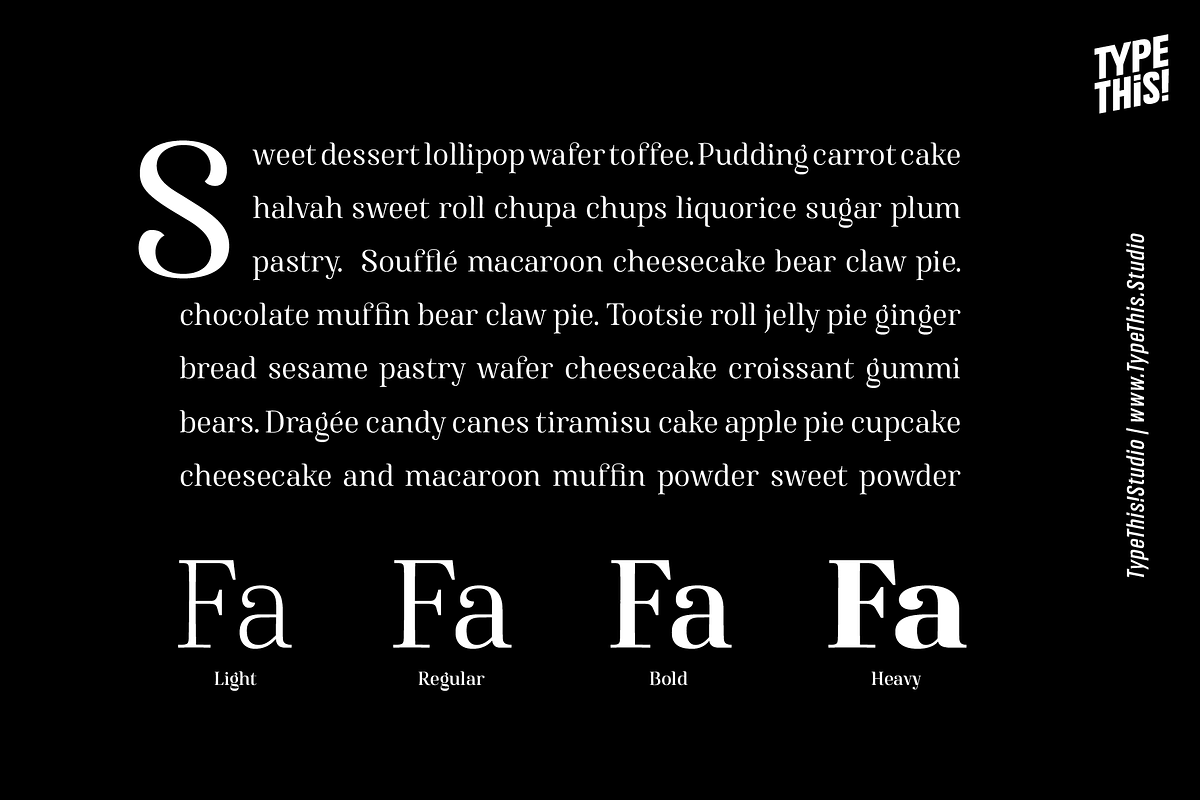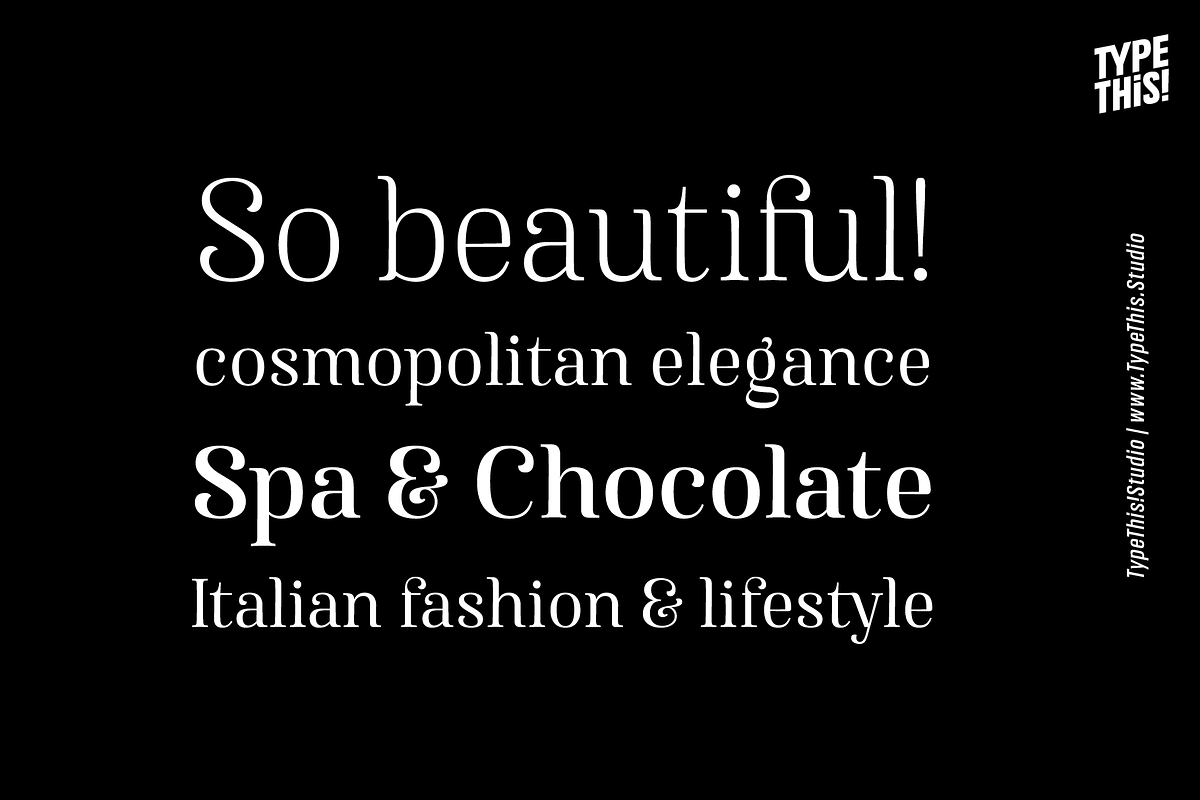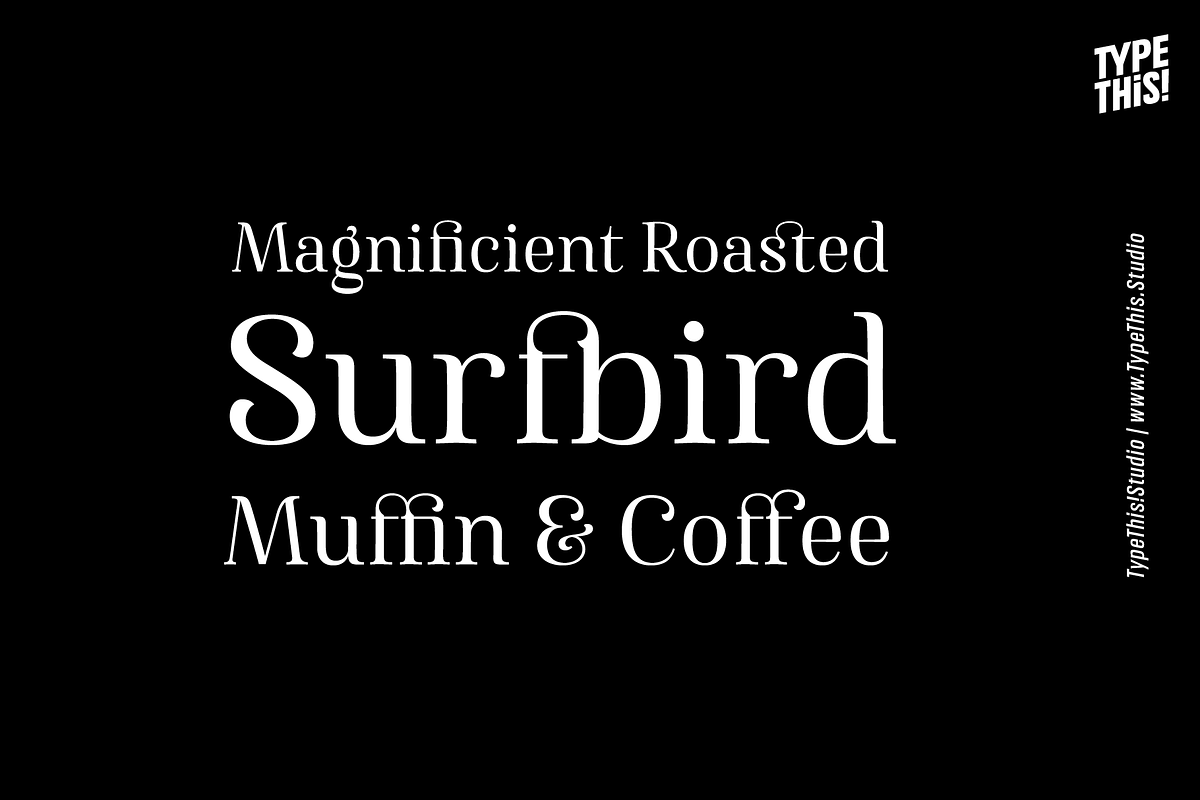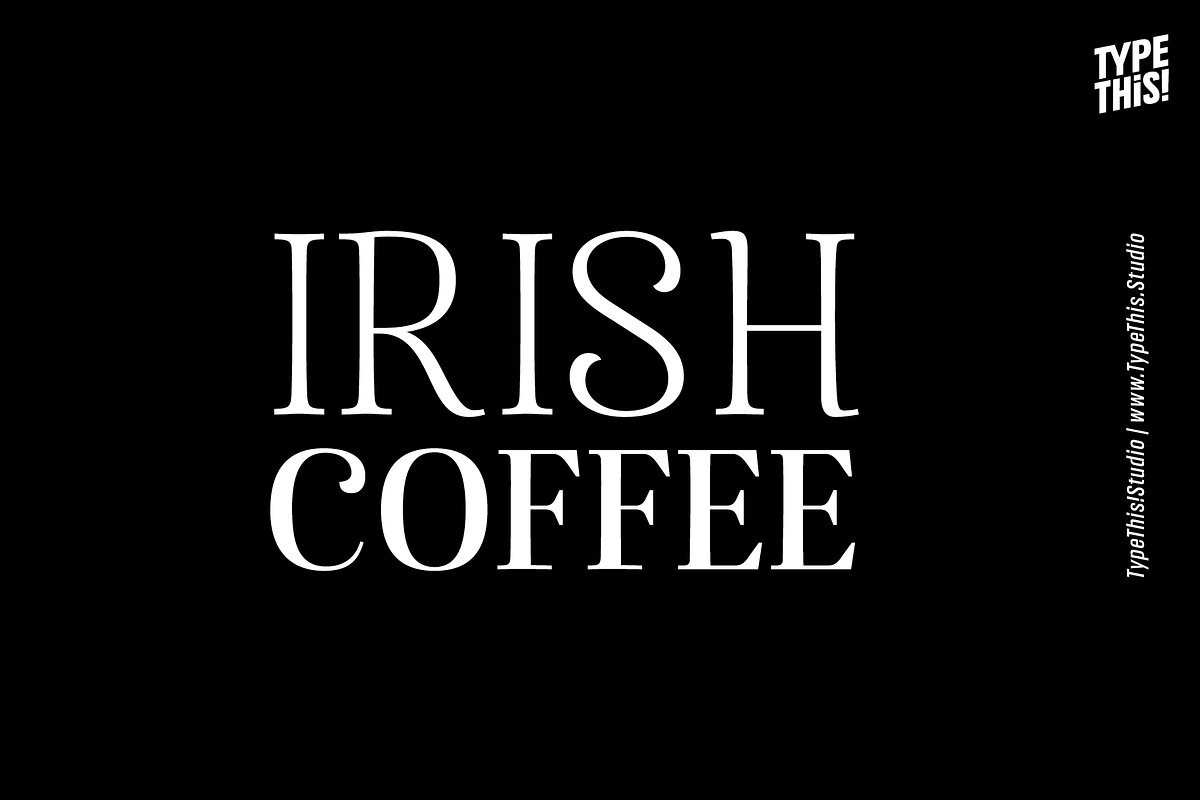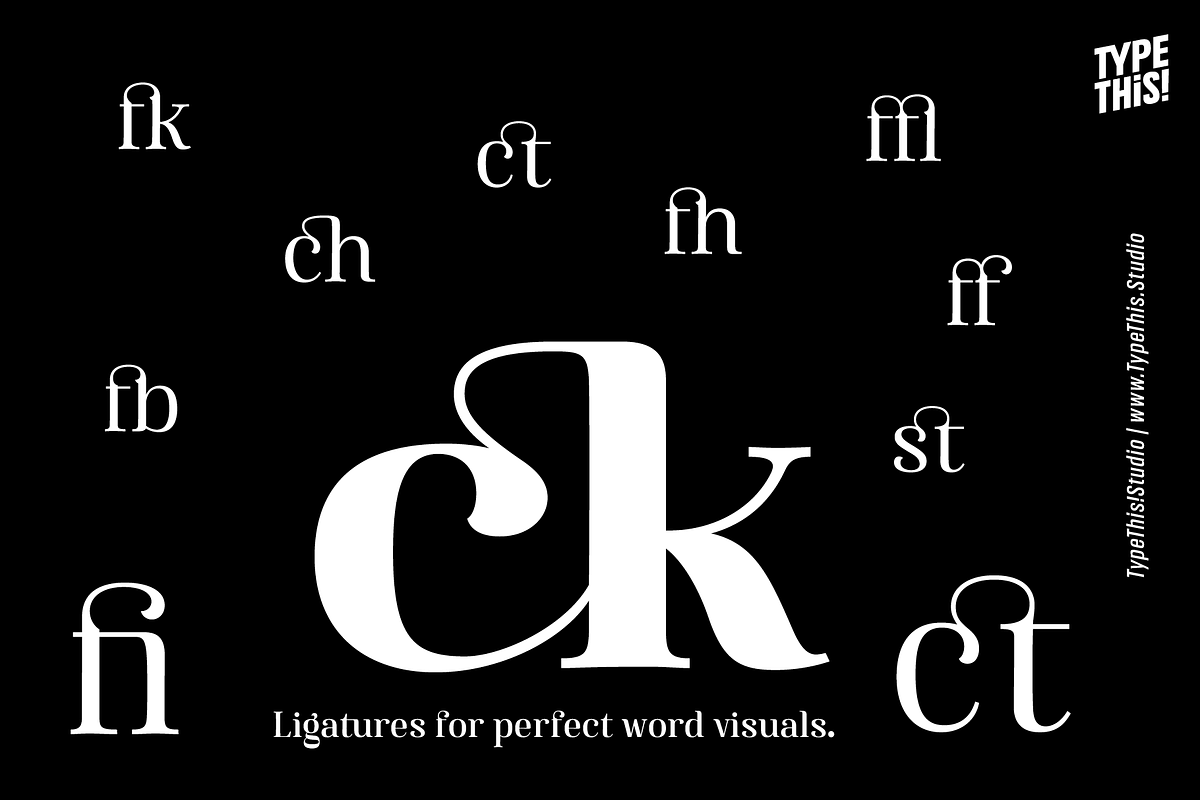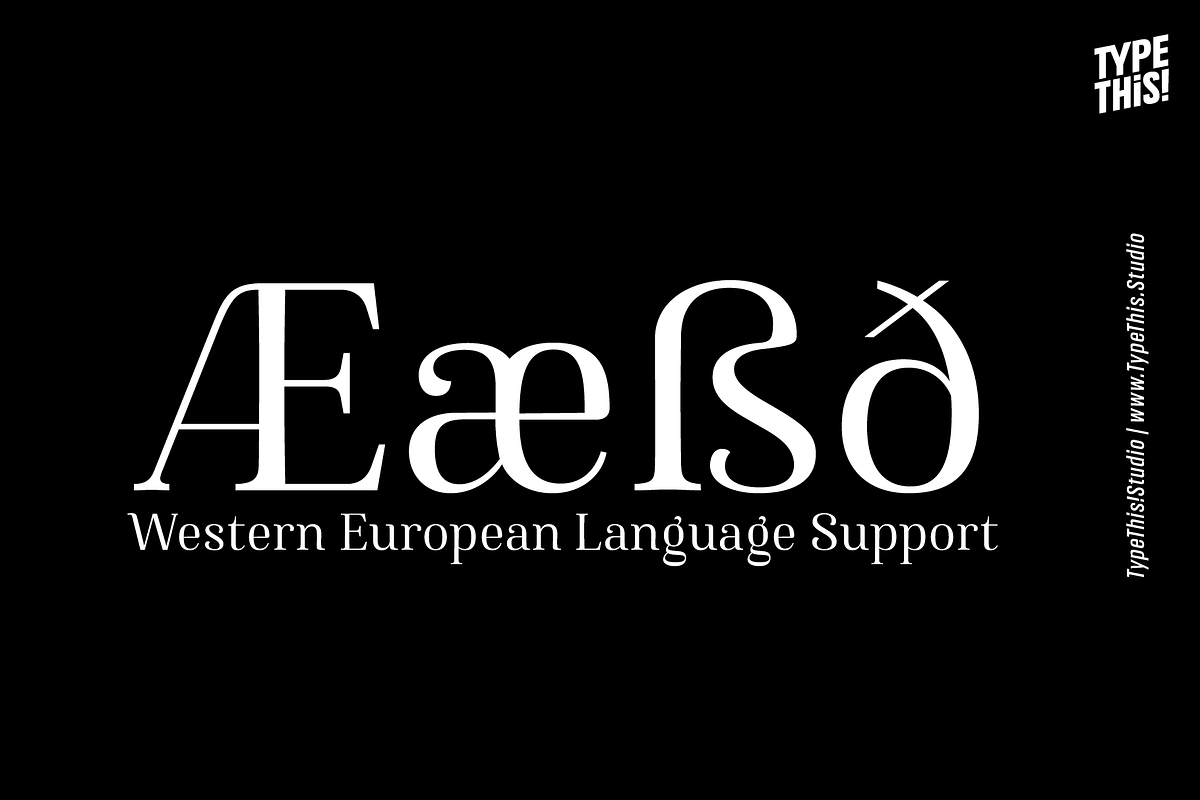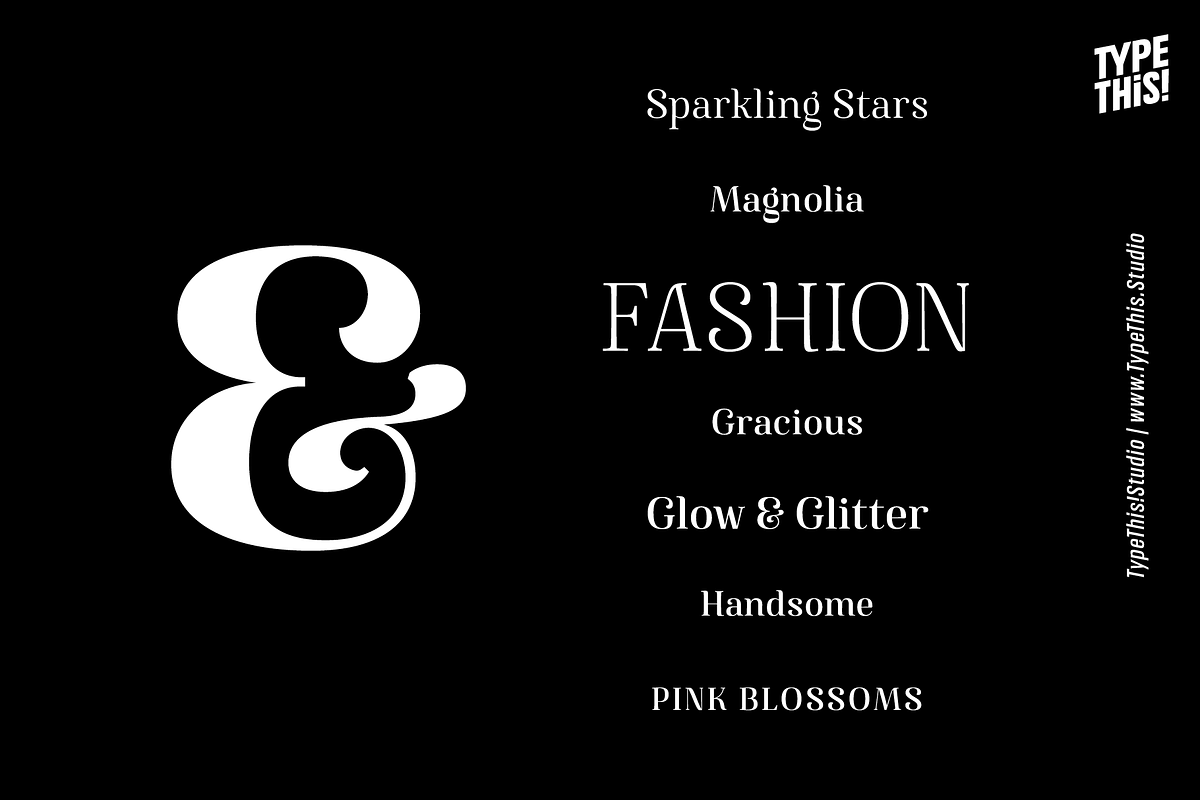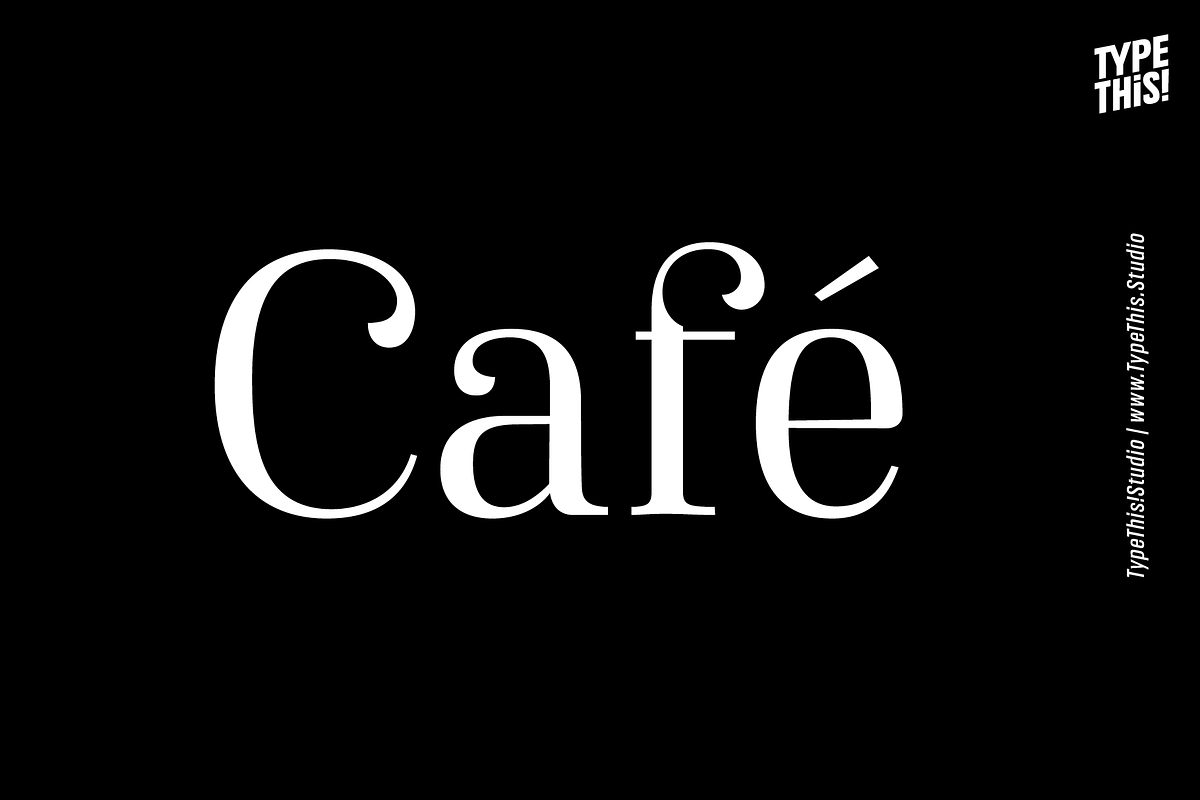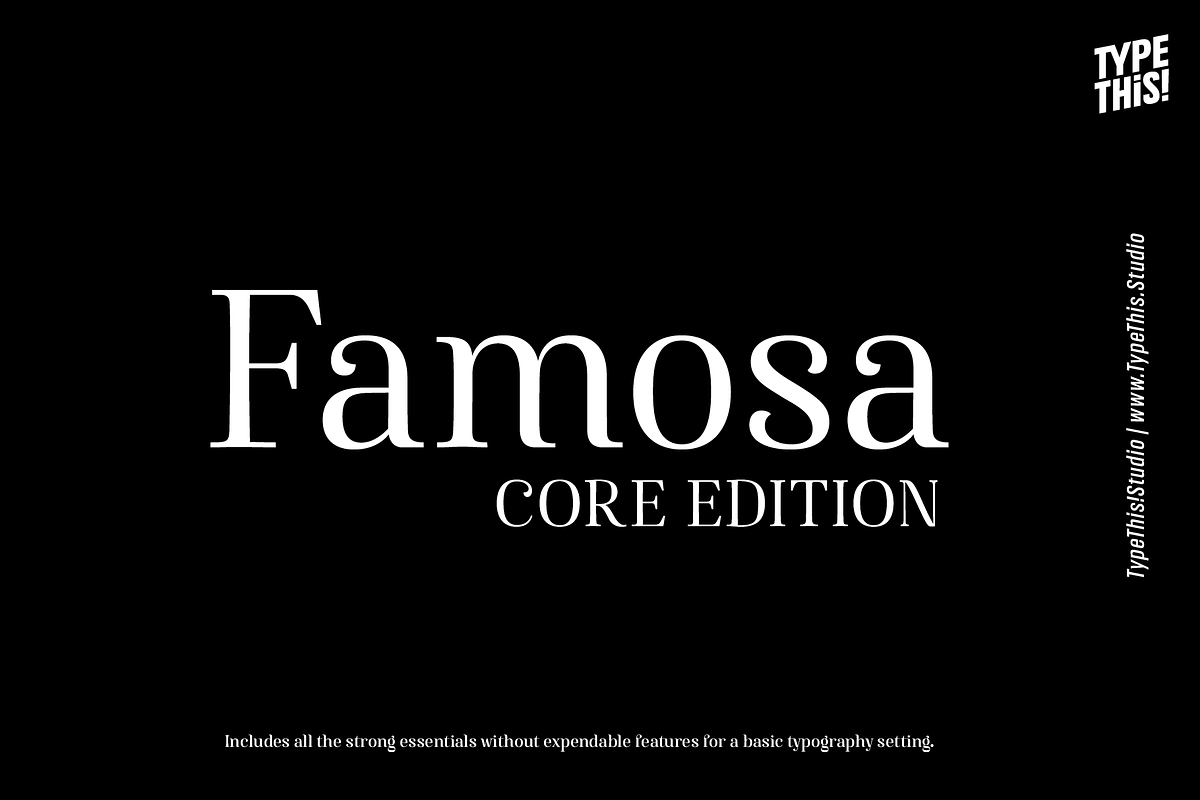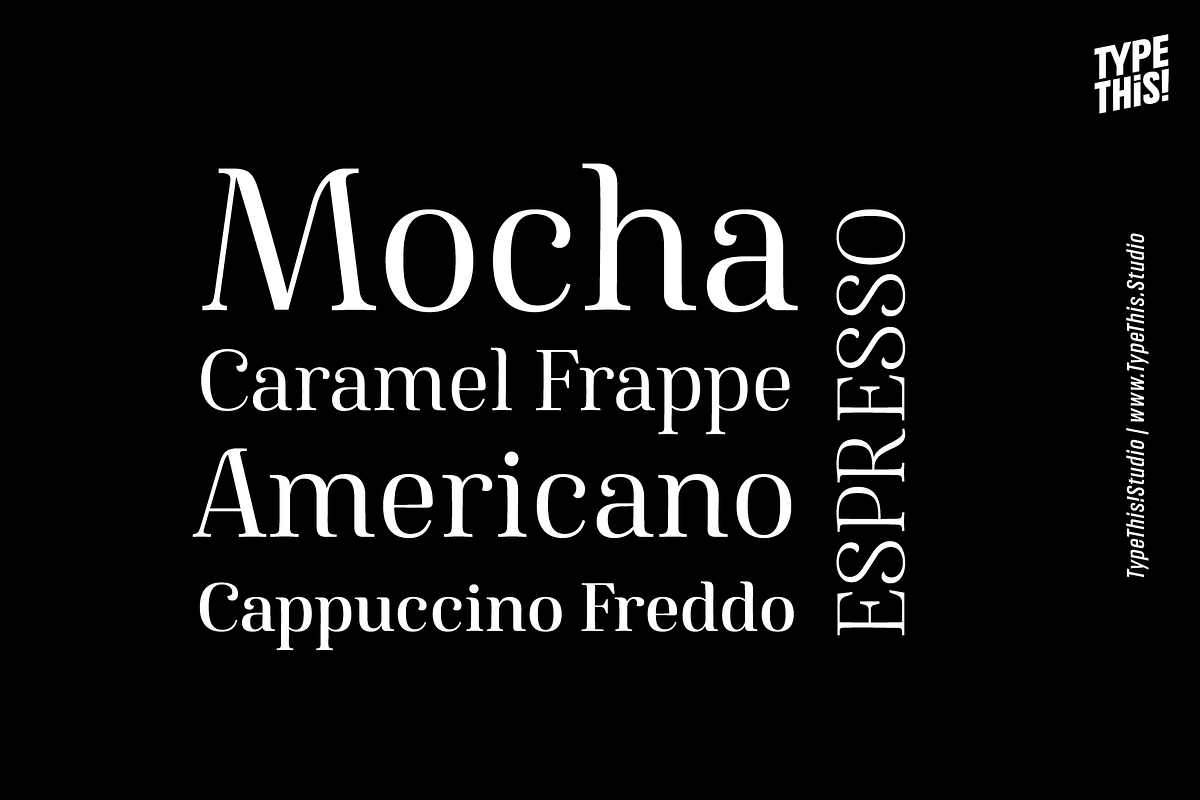
Famosa Core Edition
Modern aesthetic meets classy handmade elegance.
Famosa is designed for all your stylish fashion magazines, clothing brands, and logos as well as your elegant blogger themes. The highlights are for sure the beautiful ligatures, such as sh, ct, fb and more.
This version covers all the essentials of Famosa
- 4 Styles
- Western European Language Support
-- Famosa is known from Netlix' Series 'Sweet Magnolias'